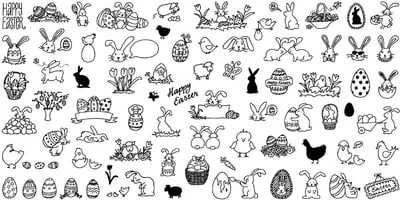
LiebeEaster Font
LiebeEaster Font is perfect for Easter celebration materials, spring festival promotions, religious holiday communications, seasonal greeting cards, church Easter service programs, and joyful resurrection-themed projects. Its festive character makes it ideal for Christian organizations, Easter event planners, seasonal decorators, greeting card designers, and any application requiring celebratory typography that conveys Easter joy, spring renewal, and the hopeful spirit of resurrection and new beginnings in Christian traditions.
LiebeEaster Font is exciting because it captures the joyful celebration and spiritual renewal of Easter through lovingly crafted letterforms that embody the hope, love, and rebirth central to Easter festivities. Its cheerful proportions and festive details reflect the sacred joy of resurrection and the natural renewal that spring brings to the world, making it perfect for organizations seeking to convey authentic Easter celebration and spiritual uplift. The font's Easter character transforms communications into expressions of joyful hope and seasonal celebration.
LiebeEaster Font family includes celebration-inspired weight variations typically featuring Light, Regular, Medium, and Bold options with festive styling that maintains Easter authenticity. The family often incorporates Easter symbols, spring ornaments, and religious elements designed for seasonal celebration applications, providing designers with comprehensive tools for creating authentic, Easter-focused typographic compositions.
When selecting Easter celebration typography solutions, LiebeEaster Font represents an exceptional choice for religious and seasonal holiday projects. This joyful typeface brings instant Easter authenticity to any design, making it invaluable for churches, seasonal event organizers, and Christian organizations celebrating resurrection themes. Whether you're developing Easter service materials, creating spring celebration campaigns, or designing religious holiday communications, LiebeEaster Font provides the festive joy and Easter authenticity essential for expressing resurrection celebration in today's faith-focused seasonal marketplace.